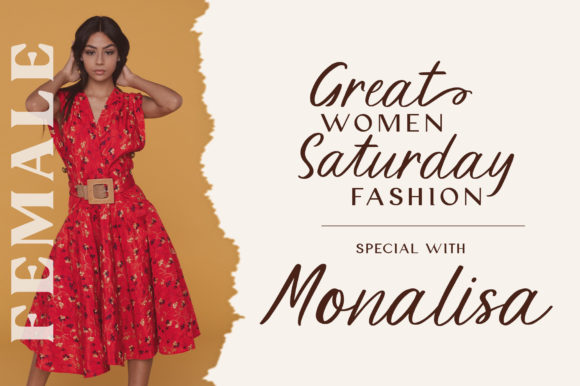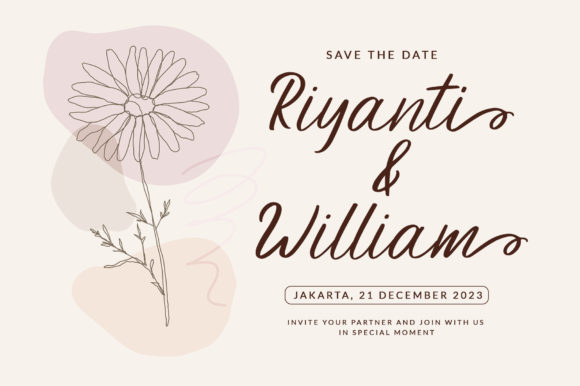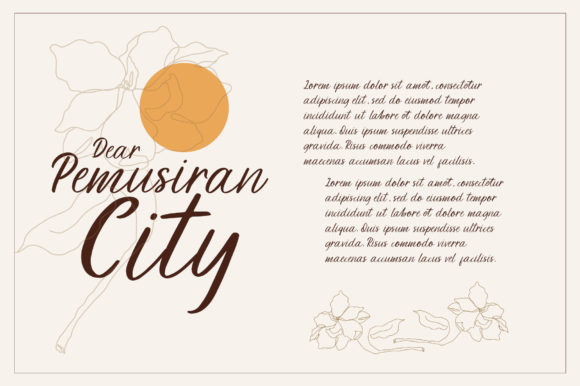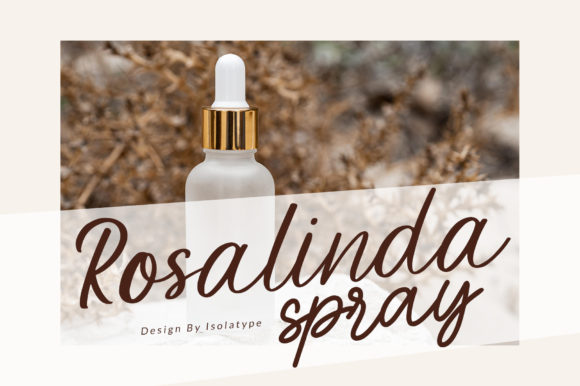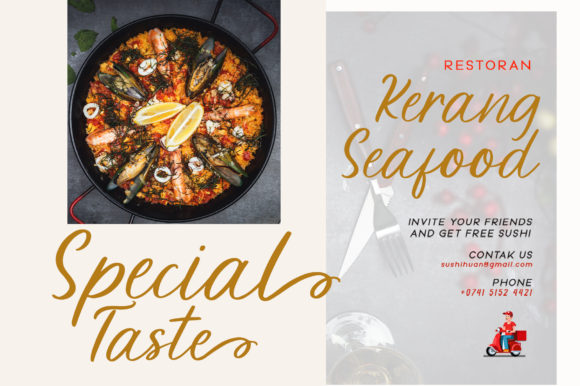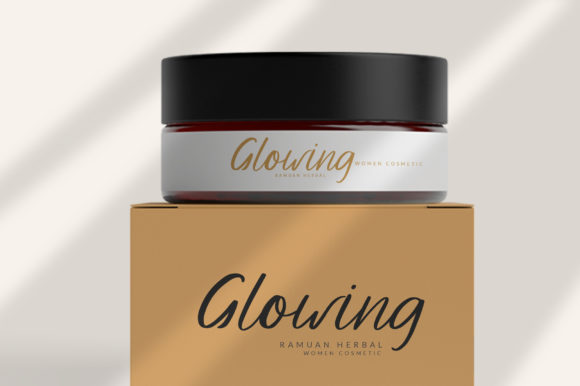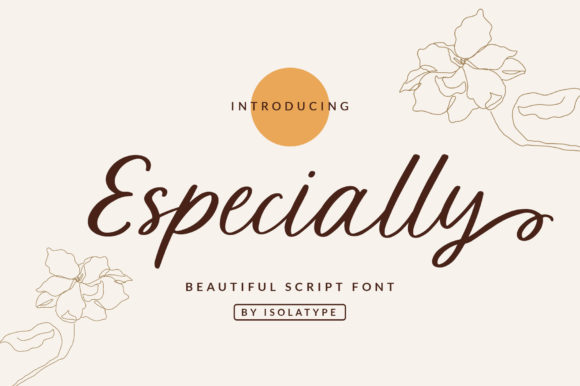
Introducing Especially Font: Elevate Your Designs with Elegance and Charm
Are you a designer or crafter looking for a font that exudes elegance and charm? Look no further than Especially Font, a beautiful script font that is sure to take your designs to the next level. With its flowing lines and sophisticated style, Especially Font is perfect for a variety of design projects, from wedding invitations and greeting cards to logos and business cards.
A Font that Exudes Elegance and Charm
Especially Font is a script font that is especially designed to add a touch of elegance and charm to your designs. Its beautiful, flowing lines make it perfect for creating sophisticated and eye-catching designs that are sure to impress. Whether you’re designing a wedding invitation, a thank you card, or a logo, Especially Font is the perfect choice.
One of the best things about Especially Font is its versatility. It’s perfect for a wide range of design projects, including:
• Wedding invitations: Add a touch of elegance and sophistication to your wedding invitations with Especially Font.
• Thank you cards: Show your appreciation in style with beautifully designed thank you cards featuring Especially Font.
• Quotes: Add a touch of elegance to your quotes with Especially Font, perfect for social media posts, blogs, and more.
• Greeting cards: Create beautiful and eye-catching greeting cards for any occasion with Especially Font.
• Logos: Add a touch of sophistication to your logo with Especially Font, perfect for businesses and brands.
• Business cards: Stand out from the crowd with beautifully designed business cards featuring Especially Font.
Another great feature of Especially Font is that it’s PUA encoded, which means you can access all of the glyphs and swashes with ease. This makes it easy to customize your designs and add your own personal touch. With PUA encoding, you can:
• Access a wide range of glyphs and swashes to add variety to your designs.
• Easily customize your designs to fit your brand or style.
• Save time and effort with easy access to the glyphs and swashes you need.
Why Choose Especially Font?
So why choose Especially Font for your design projects? Here are just a few reasons:
• Elegant and charming: Especially Font exudes elegance and charm, making it perfect for designs that need a sophisticated touch.
• Versatile: Especially Font is perfect for a wide range of design projects, from wedding invitations to logos and business cards.
• Easy to use: With PUA encoding, you can easily access all of the glyphs and swashes you need to customize your designs.
• High-quality: Especially Font is a high-quality font that is designed to produce beautiful and eye-catching designs.
In conclusion, Especially Font is a beautiful and elegant script font that is perfect for designers and crafters looking to add a touch of sophistication to their designs. With its flowing lines, sophisticated style, and PUA encoding, Especially Font is the perfect choice for a wide range of design projects. Whether you’re designing a wedding invitation, a logo, or a business card, Especially Font is sure to elevate your designs and leave a lasting impression.